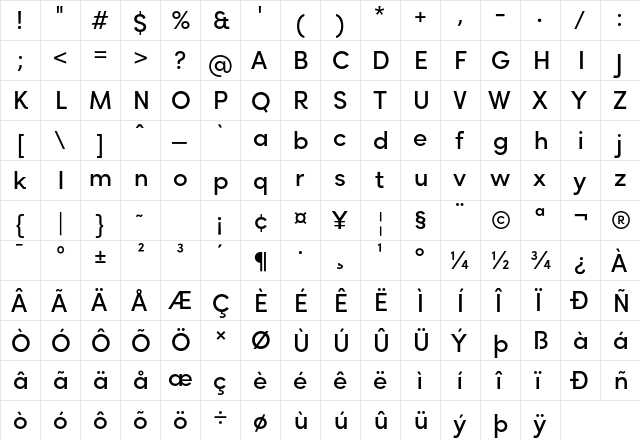
Rozanova GEO - Demo Semi Bold
| Foundry | Variable Type Foundry |
| Designer | Variable Type Foundry |
Design Context for Rozanova GEO - Demo Typeface
Rozanova GEO - Demo offers clean, dependable letterforms without strong stylistic allegiance, making it a practical choice for designers who need flexibility. Its bold stroke weight gives it real presence on the page.